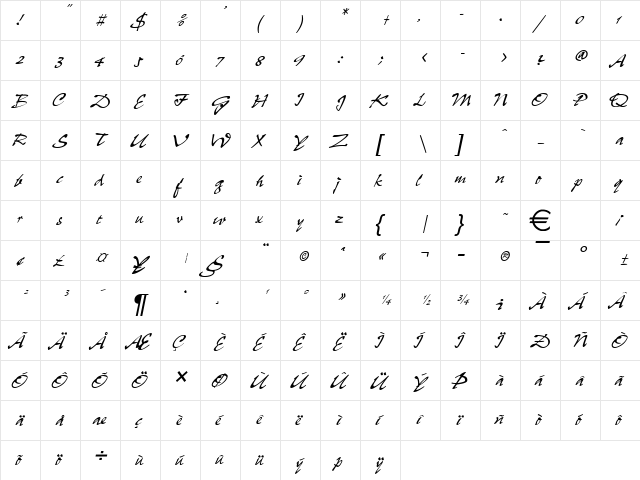
Pepper Italic
Design Context for Pepper Typeface
Pepper takes a measured approach to typography — its balanced proportions and neutral character make it a reliable workhorse for both digital and print work. Its italic angle brings a sense of urgency and motion to the letterforms.
Pro Tip: Try Pepper for annotation and caption copy alongside an upright companion — the contrast in angle creates a dynamic but ordered typographic system.